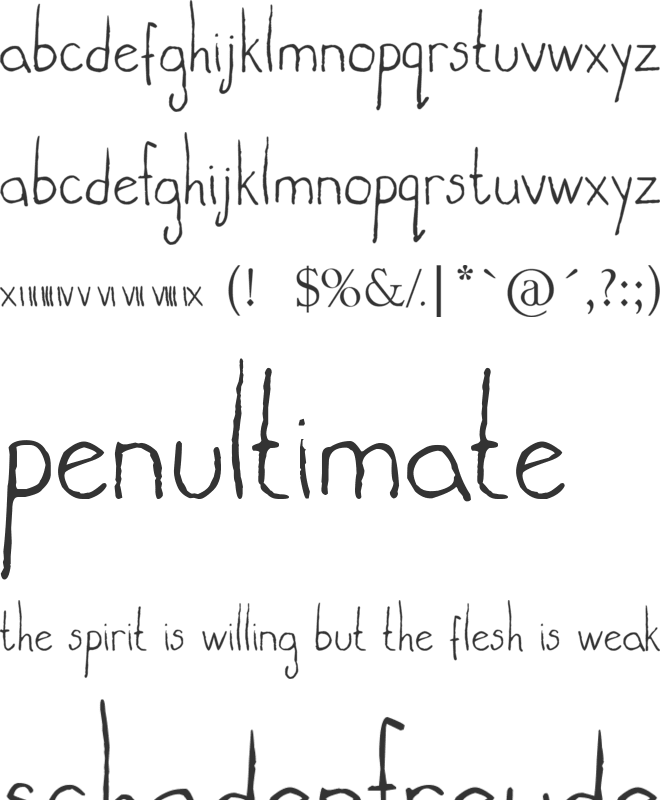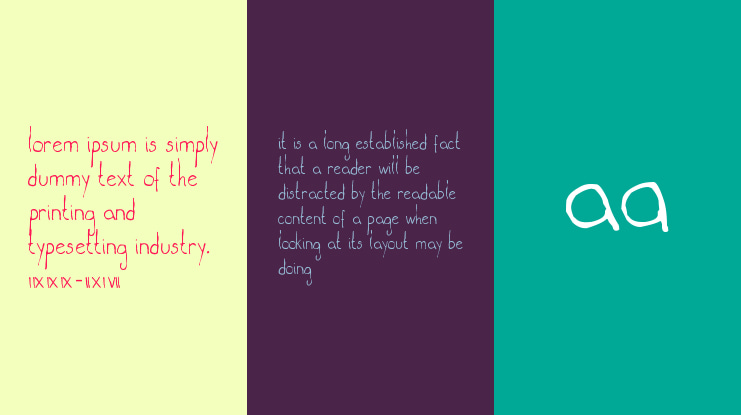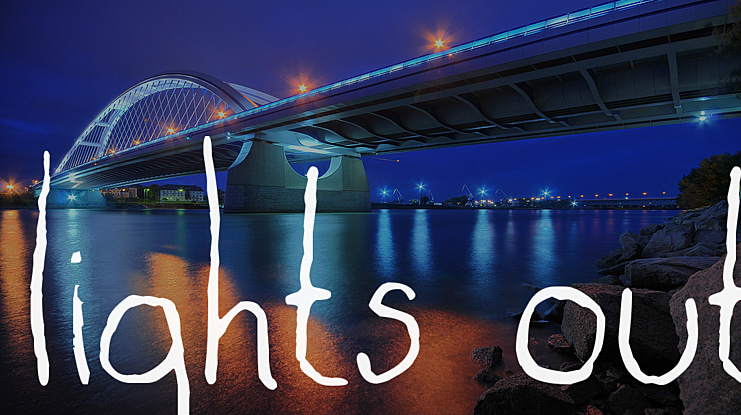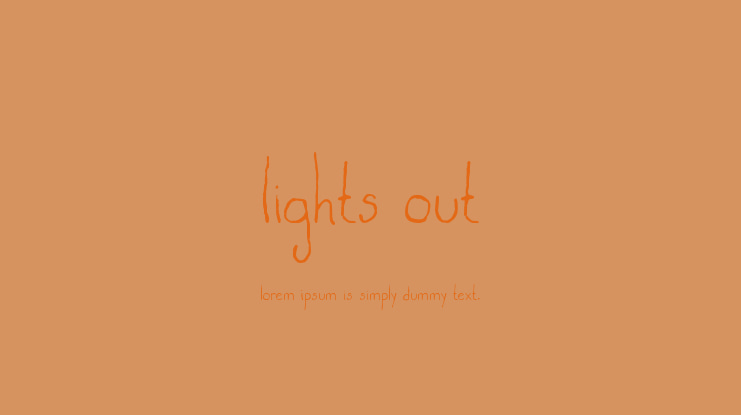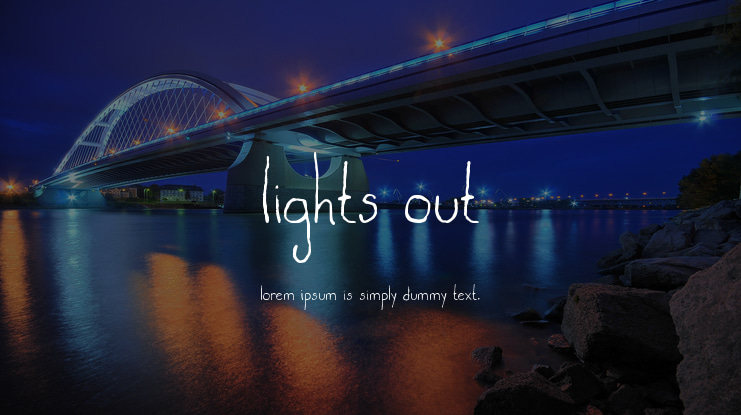
lights out Font
"Lights Out" Movie/Short font. All rights reserved. Font created by Mawhrt. It contains some variables in lowercase letters.
-are you afraid of the dark?-